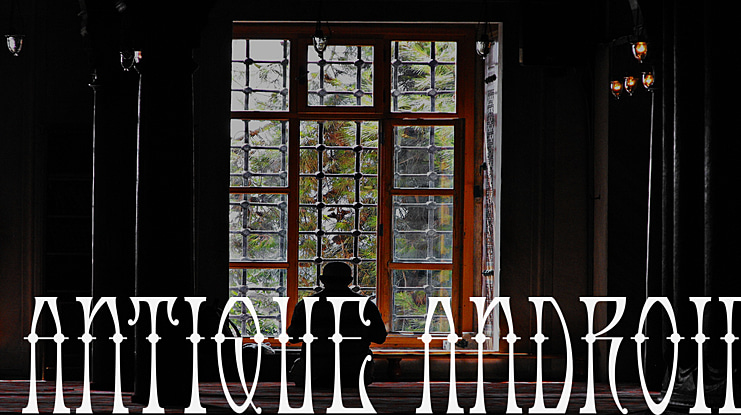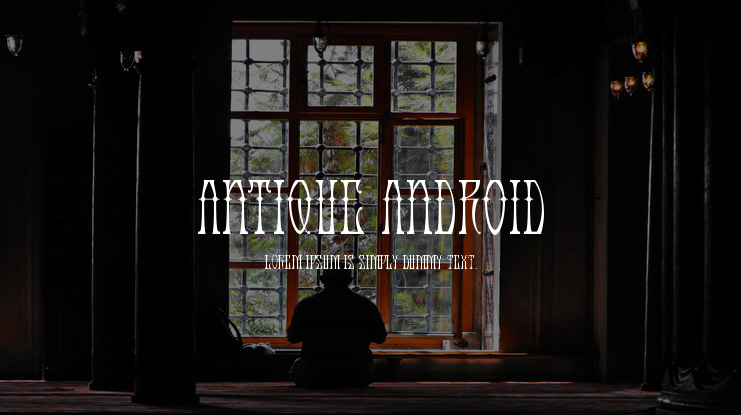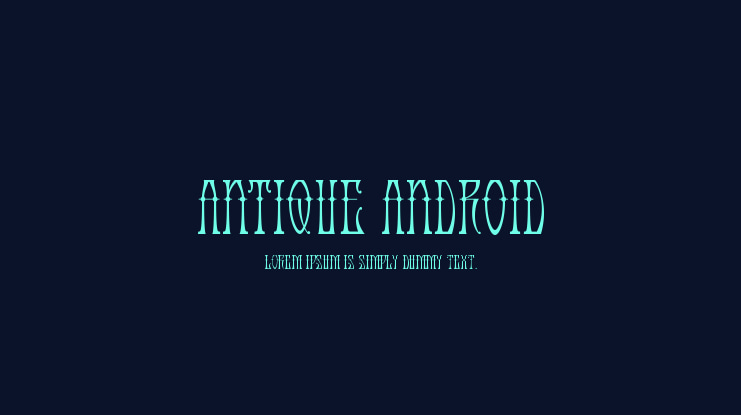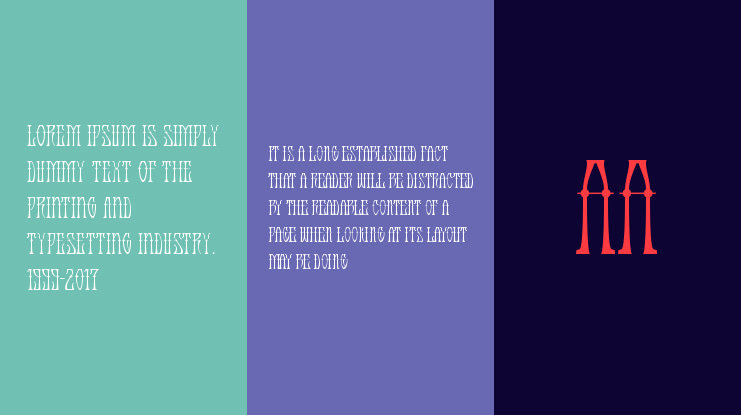
Antique Android Font
Back in 1993 I made some pencil sketches that gave me the idea for this font. It sat for years, unfinished. Not long ago I decided to finally complete it. This font is for personal use only. To use it for commercial work, it's on my Etsy store for $5: https://www.etsy.com/listing/637234275/antique-android-font-instant-download